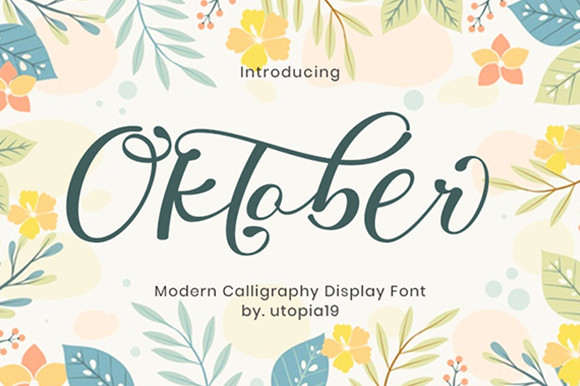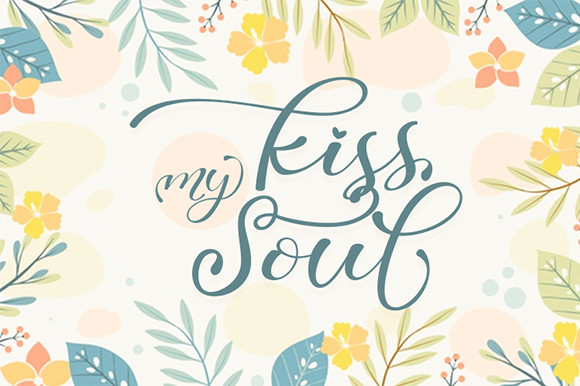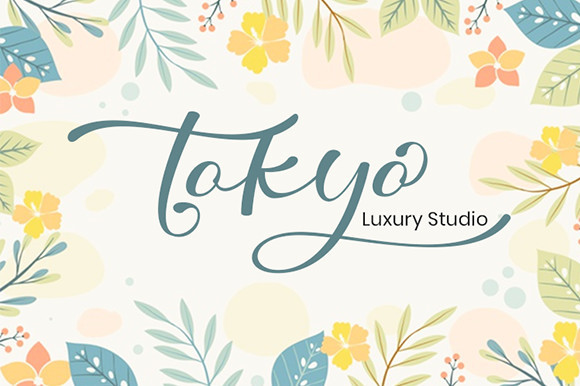
Oktober Font
Oktober FontOktober is a romantic and elegant handwritten font. It looks beautiful on wedding invitations, thank you cards, quotes, greeting cards, logos, business cards and every other design which needs a handwritten touch.